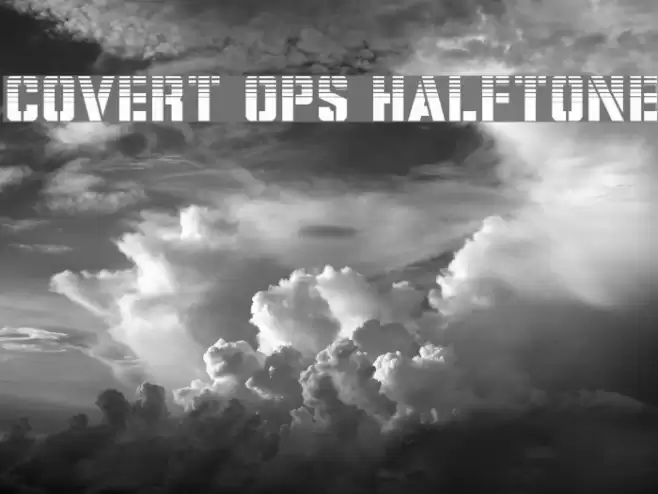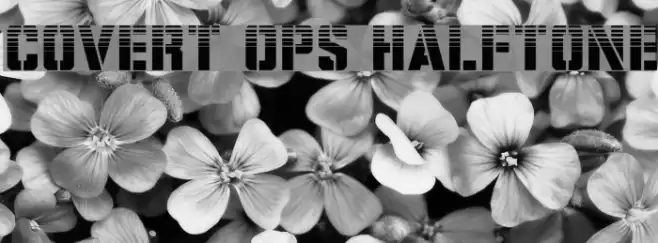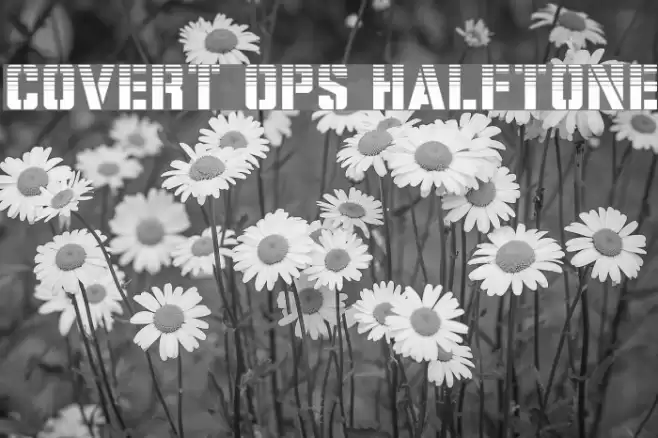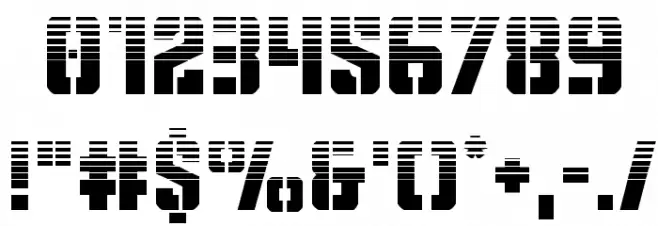
Covert Ops Halftone Font
Covert Ops Halftone Description
This font features a bold, geometric design with a distinct halftone pattern that gives it a unique, modern appearance. The characters are constructed with a series of horizontal lines that create a sense of movement and dynamism. The uppercase and lowercase letters maintain a consistent style, with sharp angles and a blocky structure. The numerals and special characters follow the same design principles, ensuring uniformity across the entire typeface. This font is particularly eye-catching and is designed to stand out in any context.
A bold, geometric font with a halftone pattern and dynamic style from Uncategorized fonts.
- Proposed Projects: Ideal for use in posters, branding, headlines, and any project requiring a modern, attention-grabbing typeface.